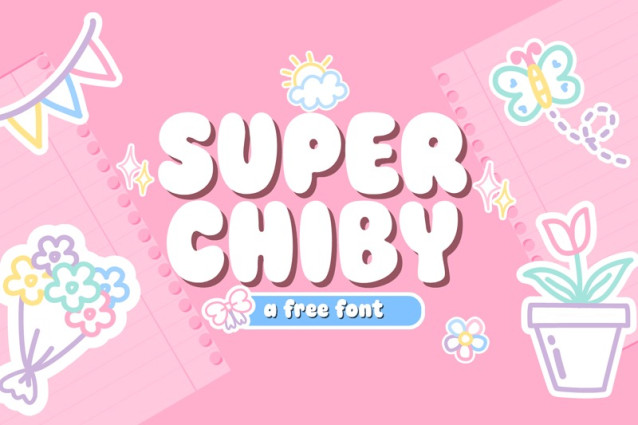
Super Chiby Font
Super Chiby Font is a simple and modern display font suitable for quotes, logos, headings, titles, and many more. Use it on any of your creative projects, and your designs will become outstanding!